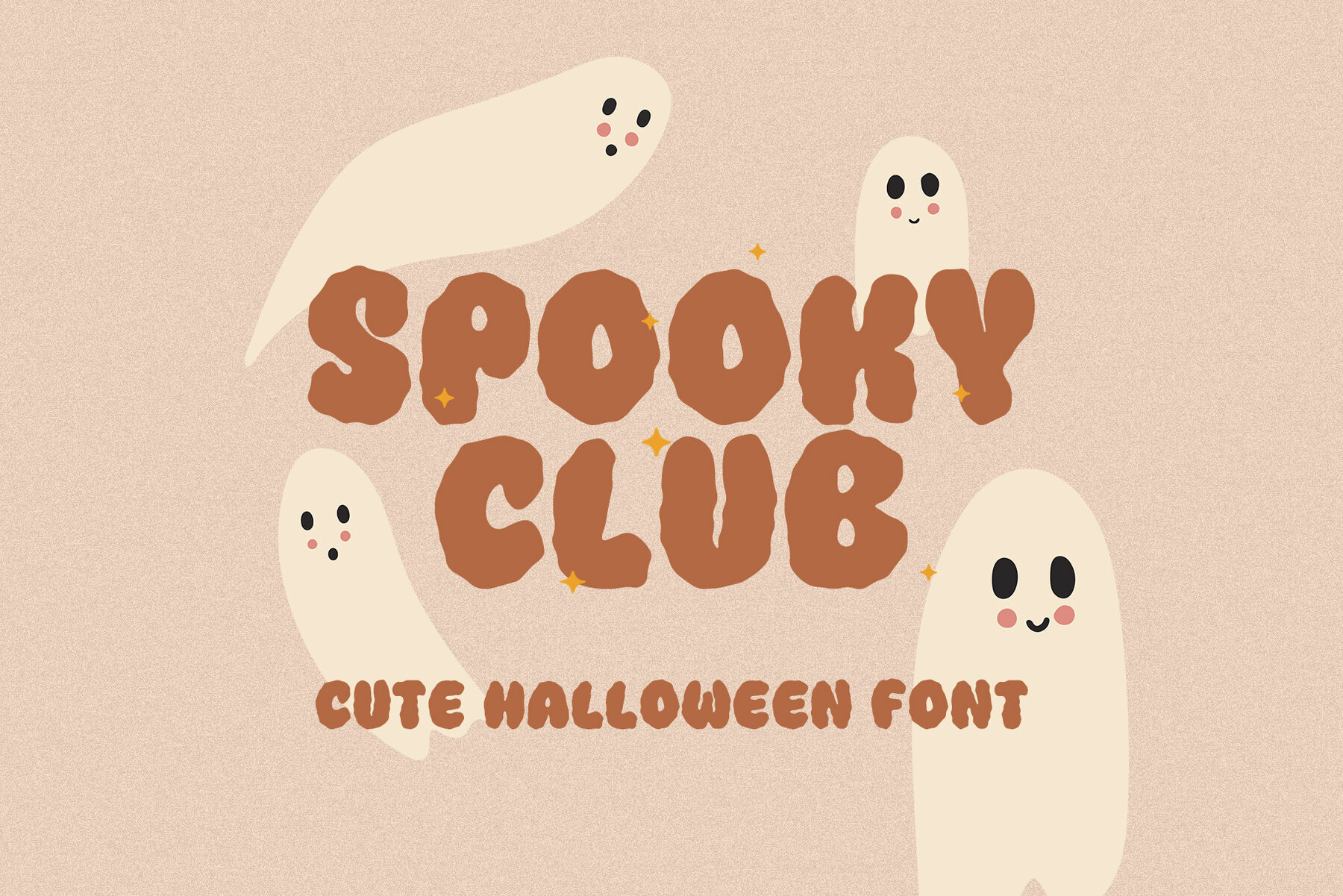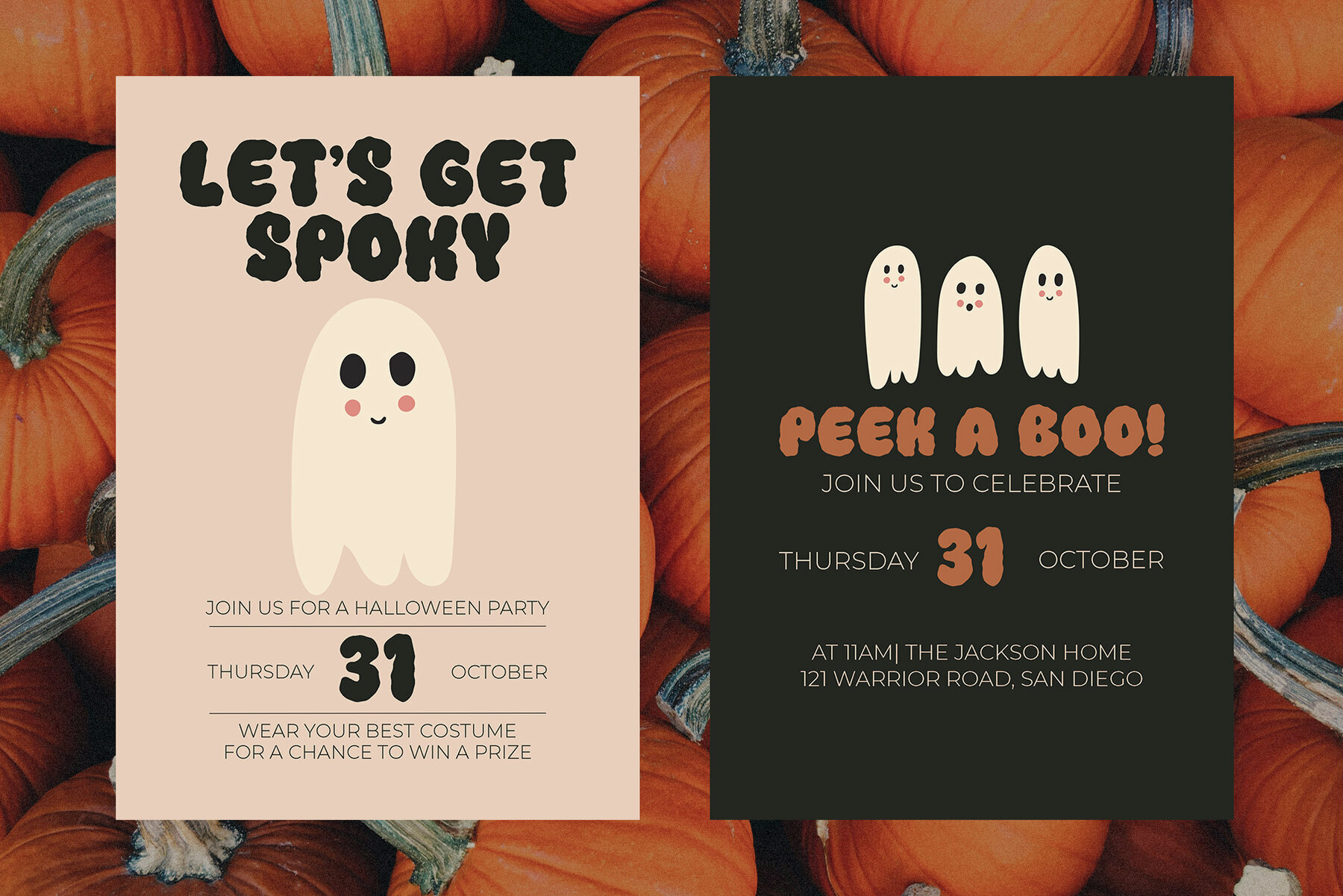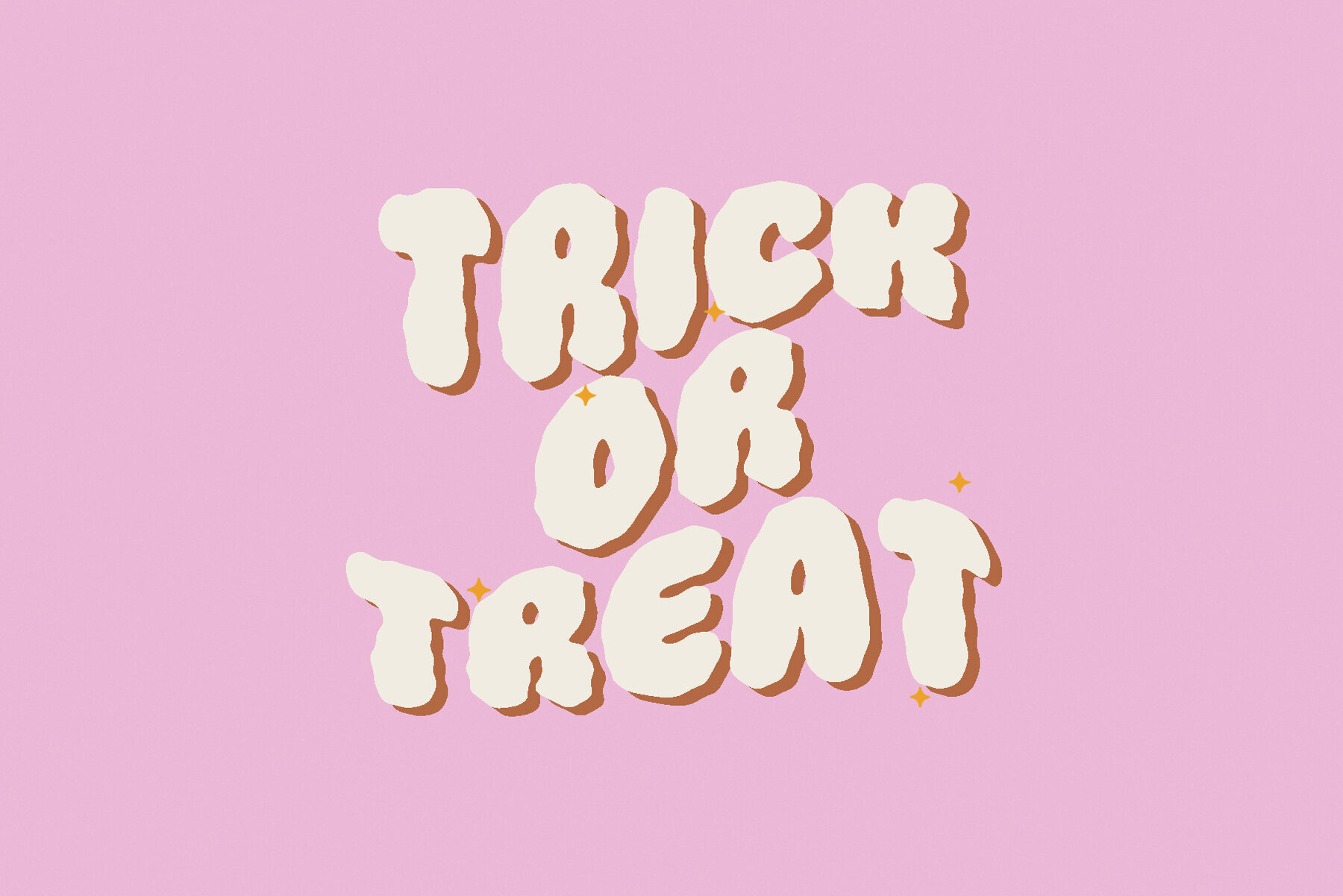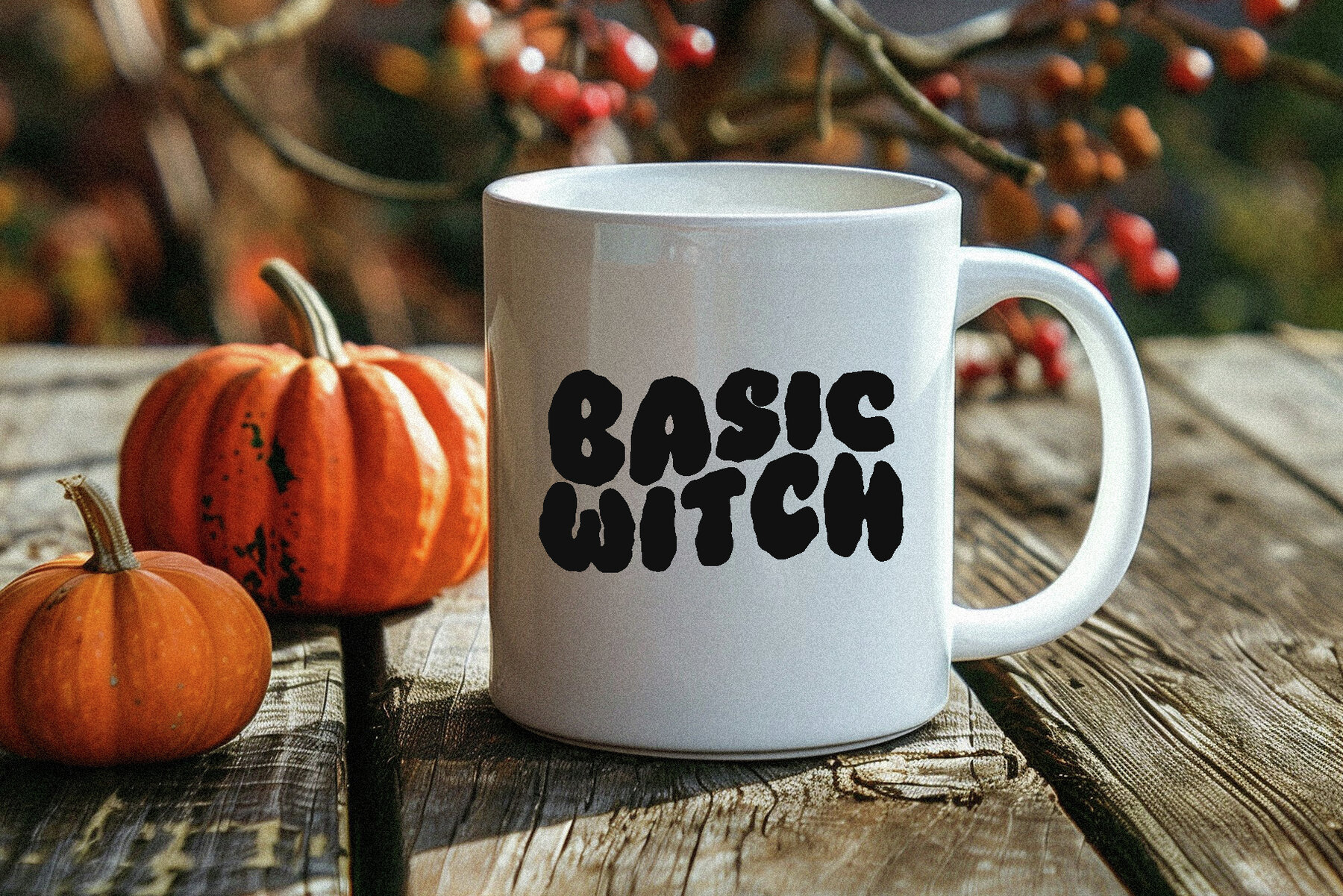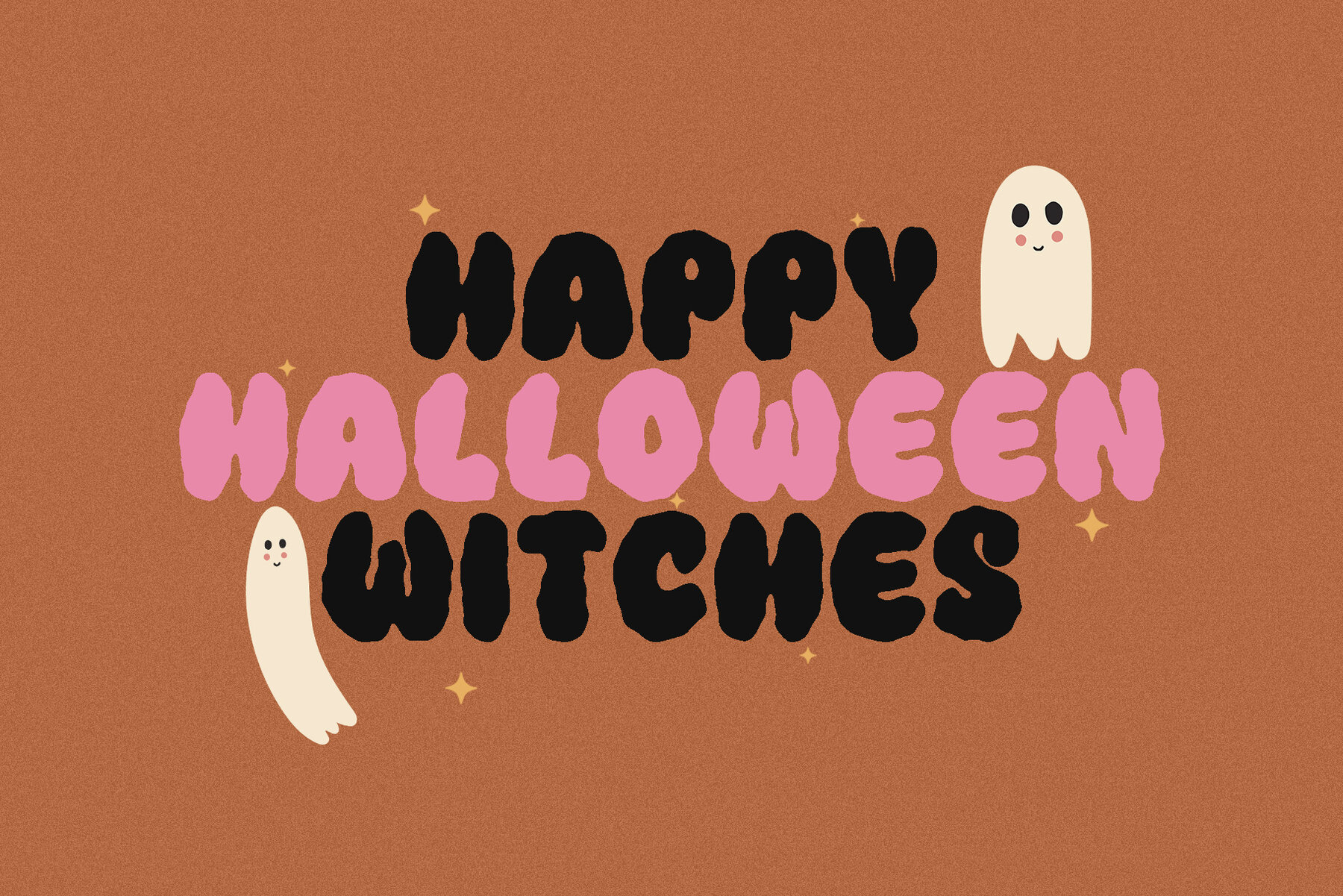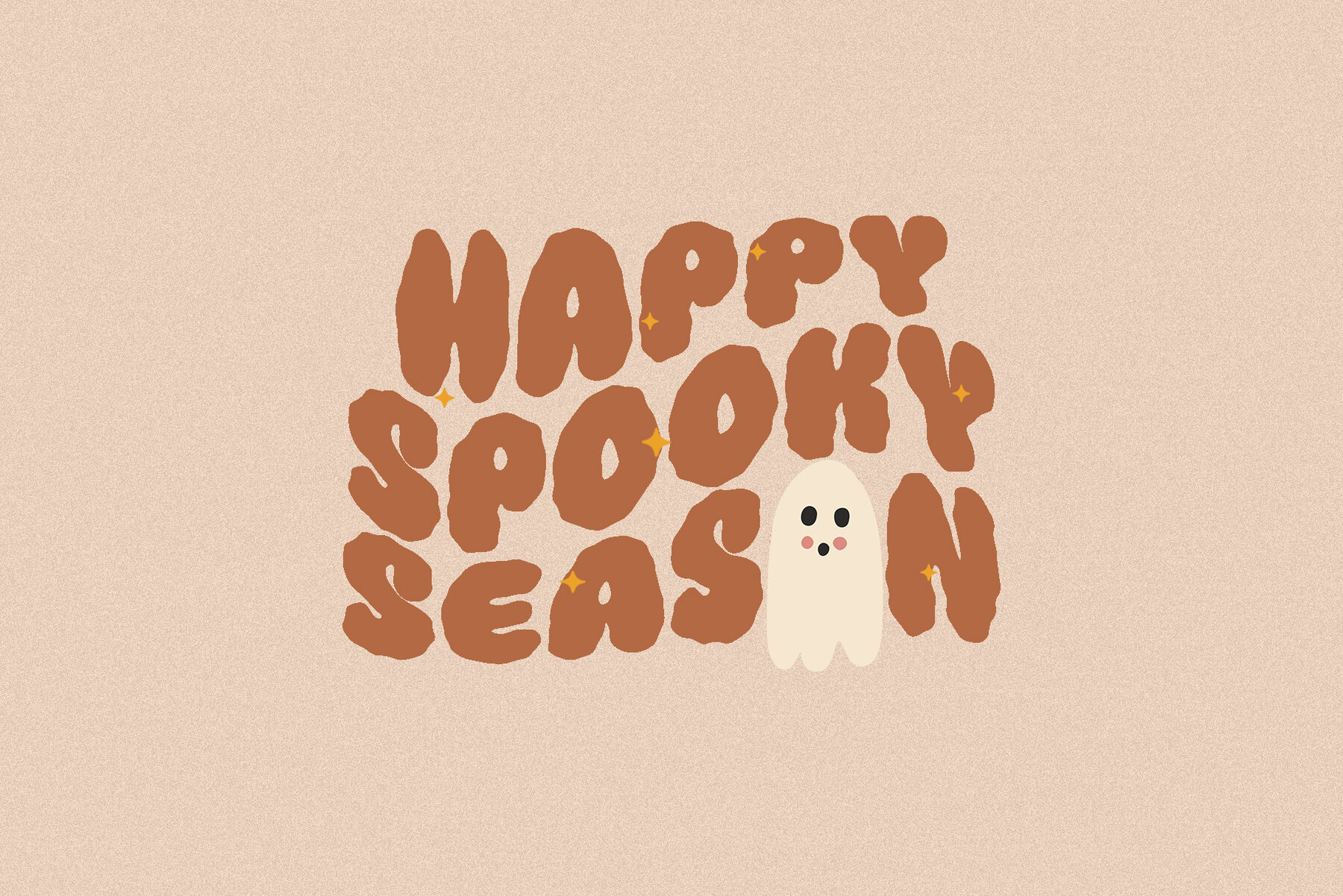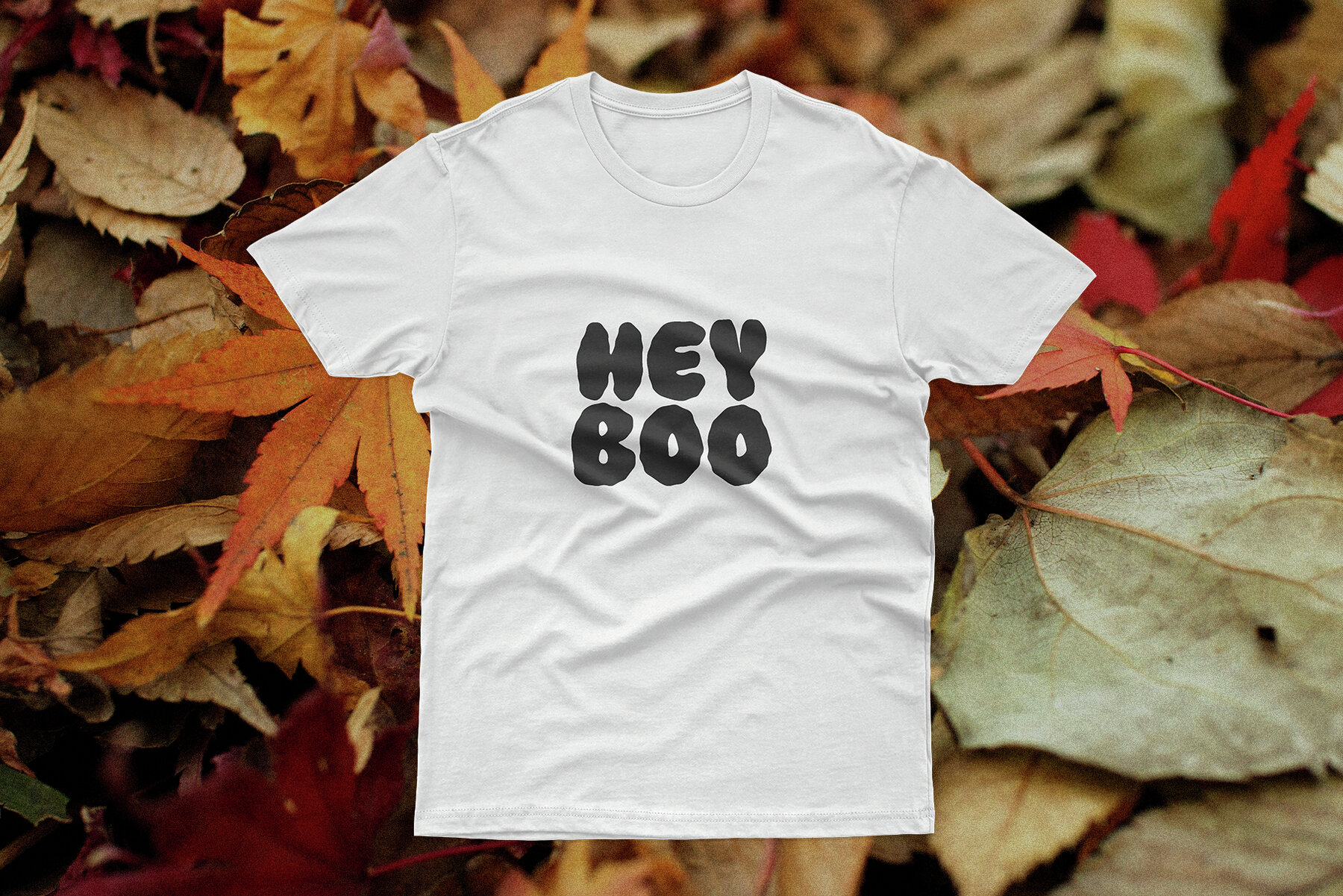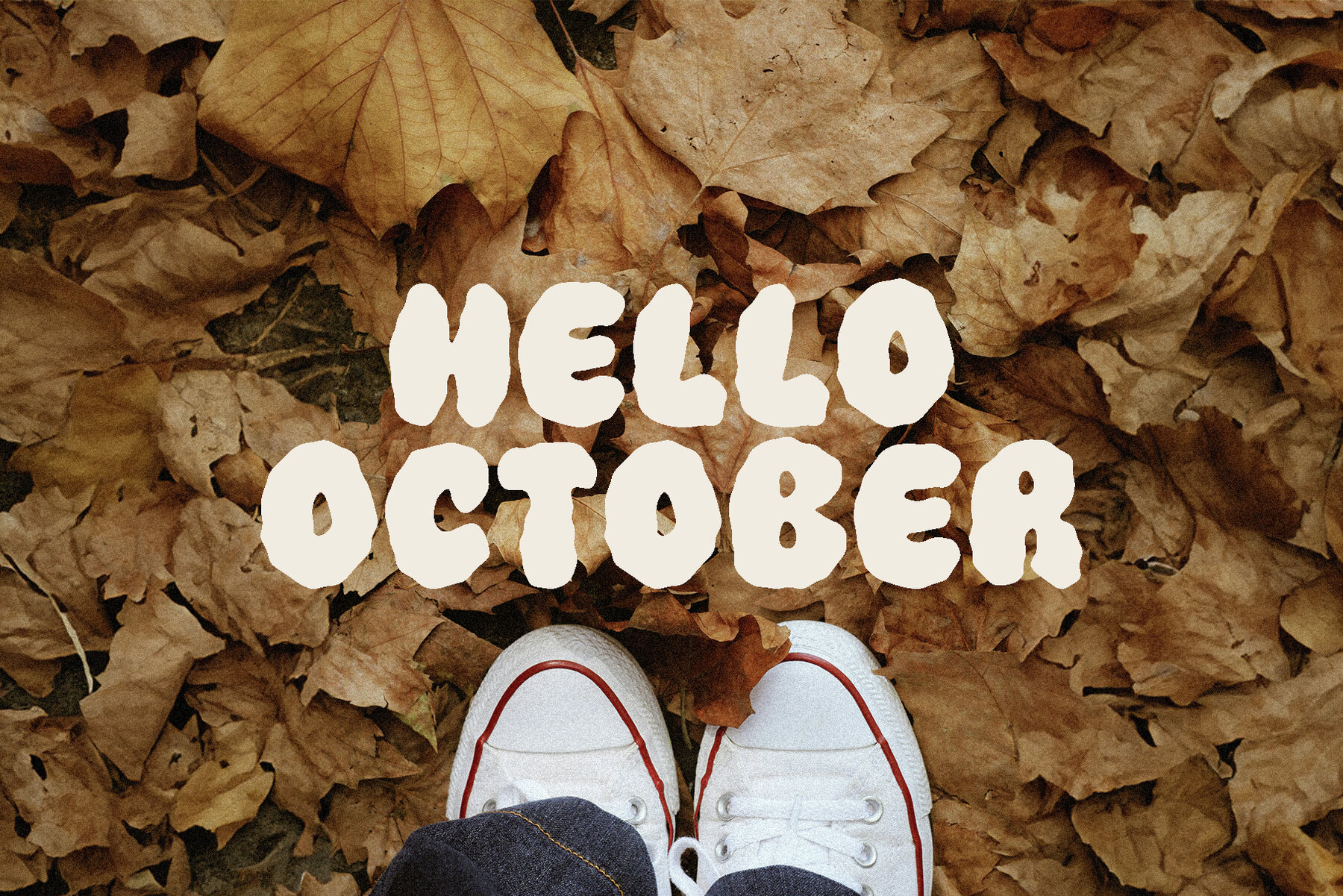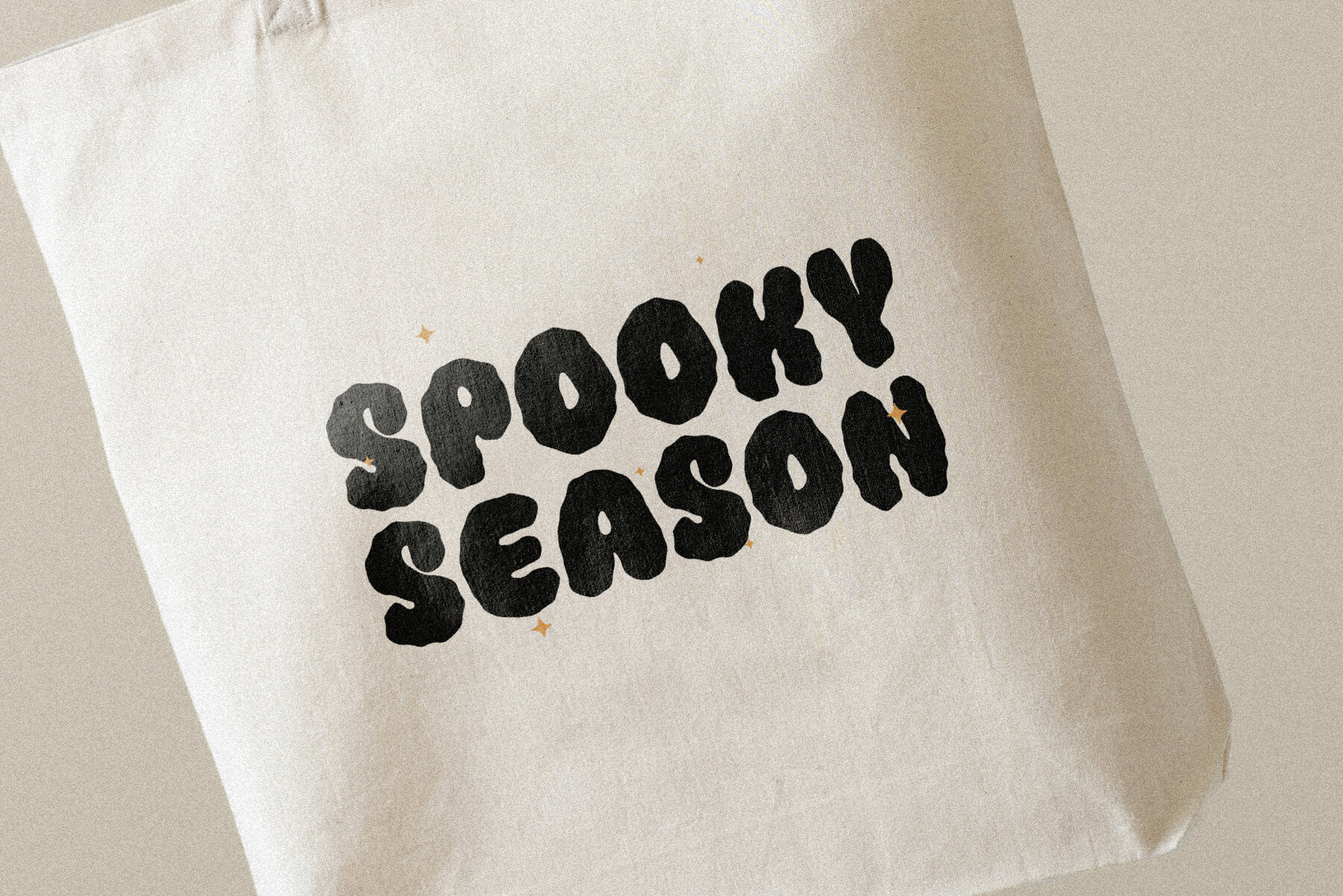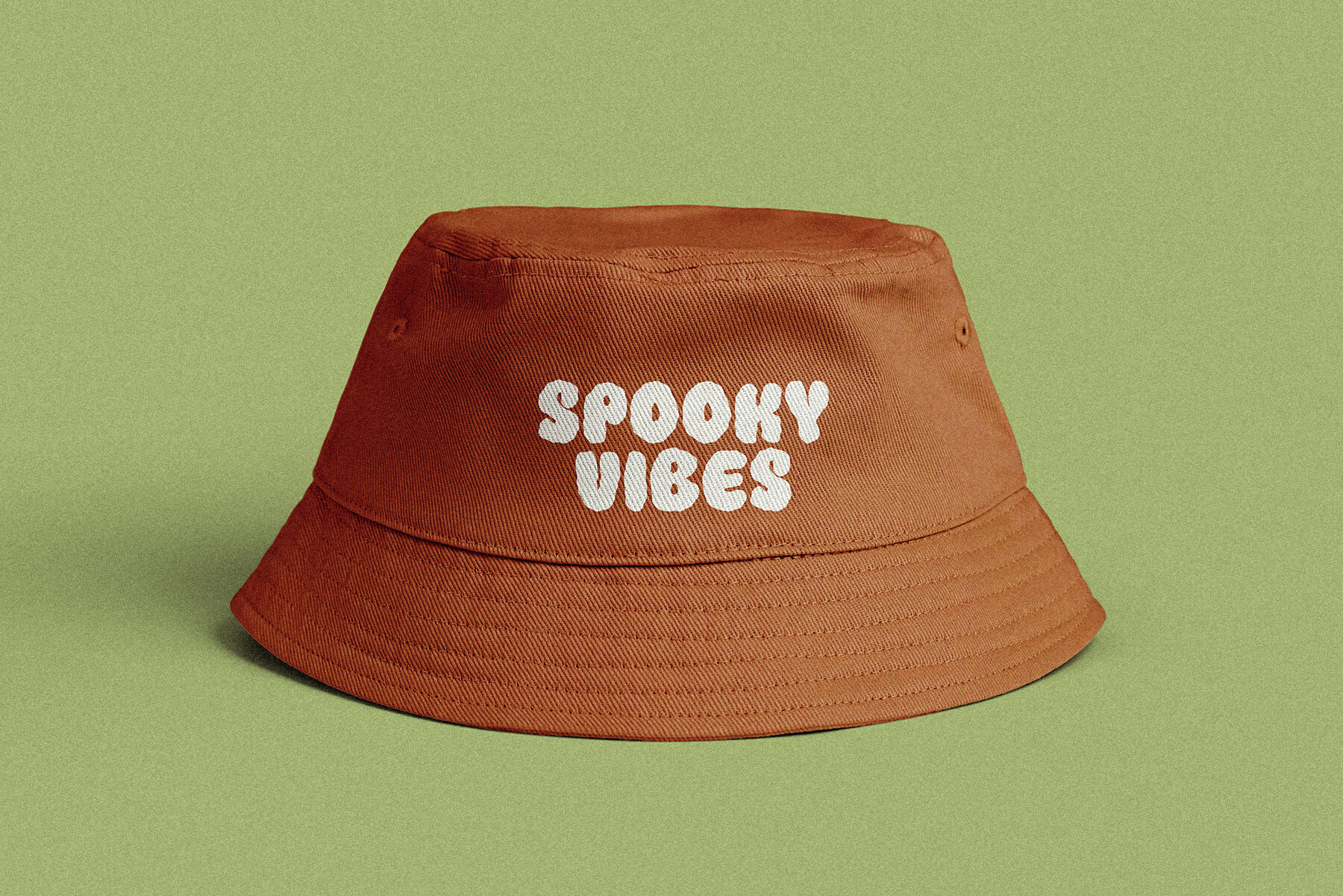
Spooky Club Font
Spooky Club is a versatile handwritten font designed for an array of creative projects, especially suited for Halloween-themed designs. Its unique style is perfect for adding a touch of personality to your digital creations. Whether you're crafting logos, invitation cards, or decorations, this font adapts beautifully to various applications. Utilize it for holiday packaging, party decorations, or even to print on fabrics to make your designs stand out.
This font isn't just limited to Halloween; it can be used across seasonal and event-based projects like wedding and birthday cards or home décor items. With multilingual support, it's an excellent choice for designers catering to diverse audiences. Experiment with the Spooky Club font to infuse your projects with a distinct and memorable character, enhancing the visual appeal and uniqueness of your designs.